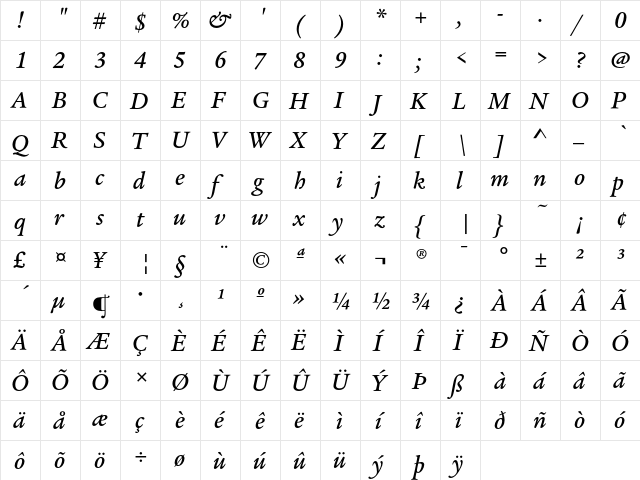
LegacySerifEF MediumItalic
Design Context for LegacySerifEF Typeface
LegacySerifEF brings classic typographic sensibility to the table — its serifs and measured letterforms reflect centuries of print heritage. Its italic angle brings a sense of urgency and motion to the letterforms.
Pro Tip: Use LegacySerifEF for editorial body copy and considered headline work. Pair with a neutral sans for UI elements or captions to create a classic hierarchy.